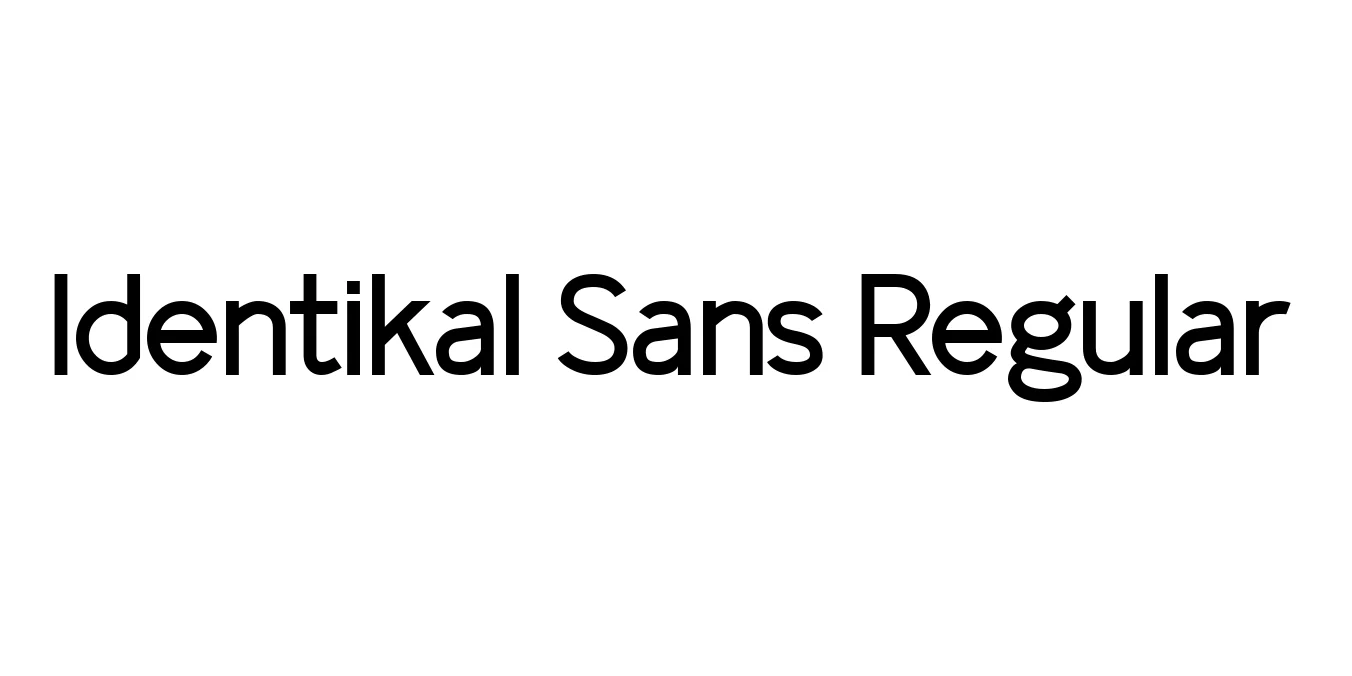
Identikal Sans Regular
Designed by Identikal Foundry
Identikal Sans Regular is a modern, geometric sans-serif typeface designed to embody clarity and functionality. Developed by the Identikal Foundry, this font family focuses on clean lines and balanced proportions, making it a staple for minimalist design projects. Its neutral yet sophisticated appearance allows it to blend seamlessly into various digital and print environments without distracting the viewer.
Historically, the Identikal collection has been recognized for its industrial and techno-inspired aesthetic. This particular regular weight strikes a perfect chord between readability and stylistic expression. It is frequently utilized in corporate branding, user interface design, and high-end editorial layouts where a sense of precision and modernity is paramount.
Identikal Sans Regular Best Uses
Ideal for logos and professional identity systems.
Perfect for clean and readable body text or headers.
Excellent legibility on small screens and digital interfaces.
Suitable for modern magazine layouts and brochures.